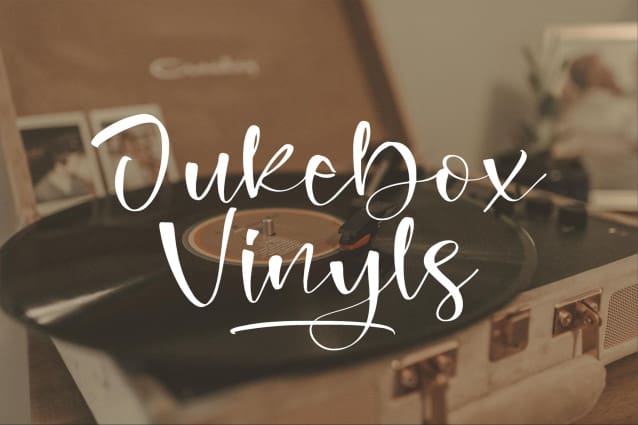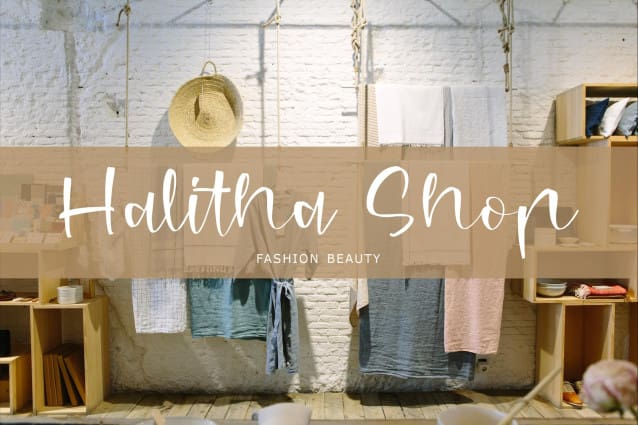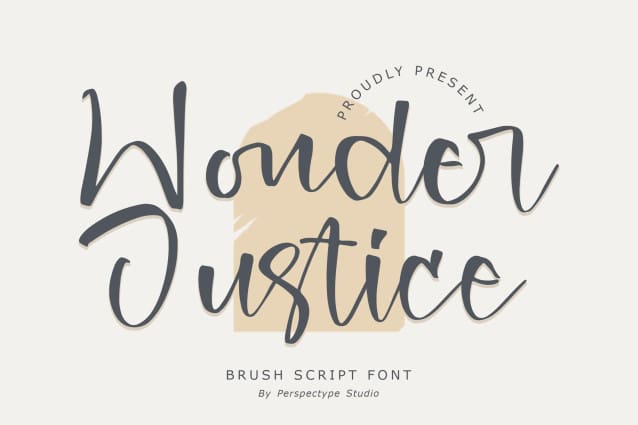
Wonder Justice Font
Wonder Justice Font – Brush Script Font , from Perspectype Studio, suitable for any projects such as: logos, branding projects, homeware designs, product packaging, mugs, quotes, posters, shopping bags, t-shirts, book covers, name card, invitation cards, greeting cards, label, photography, watermark, special events, and all your other lovely projects that need a beautiful script taste.